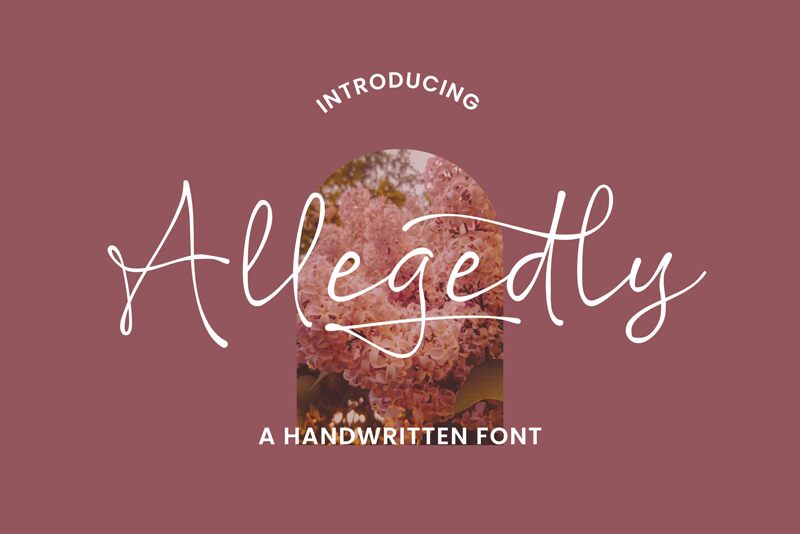
Allegedly Regular
Allegedly, crafted by Niskala Huruf, exudes a graceful handwritten elegance that captures attention with its fluidity and charm. Its light strokes and airy design impart an effortless sophistication, making it an ideal choice for projects requiring a personal and refined touch. The delicate lines of Allegedly suit various contexts, from event invitations and greeting cards to elegant logos and high-end branding materials. This font seamlessly brings warmth and personality into formal settings, effortlessly bridging the gap between casual appeal and professional finesse.